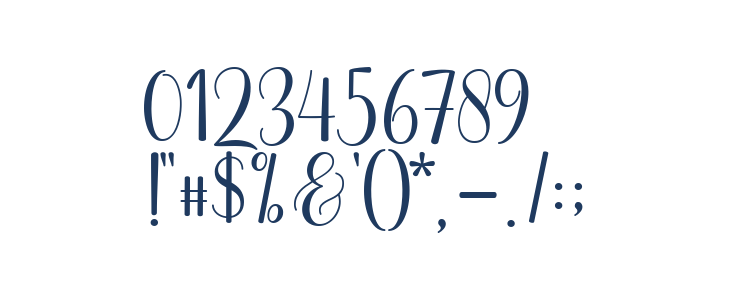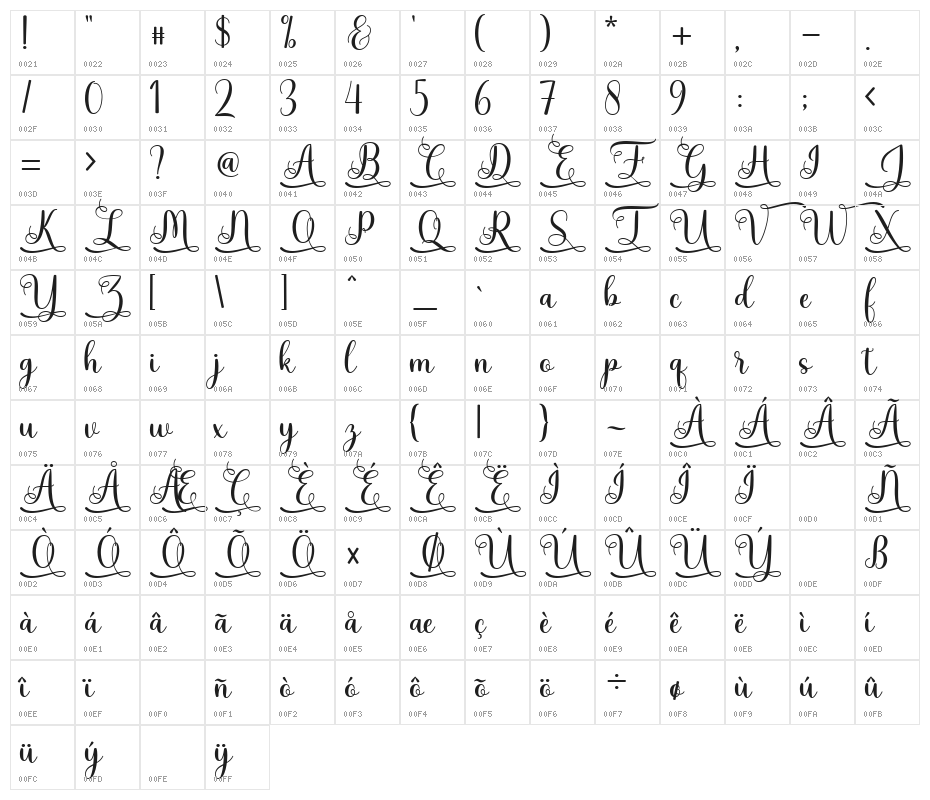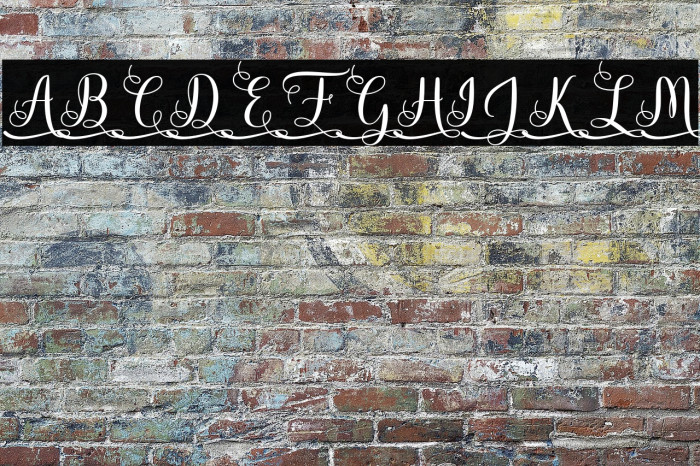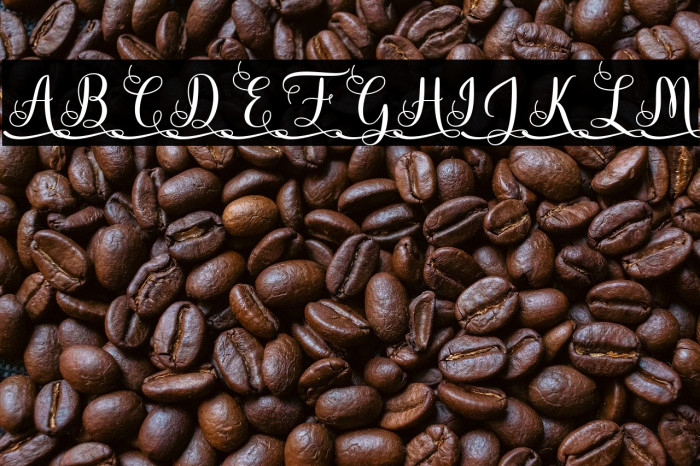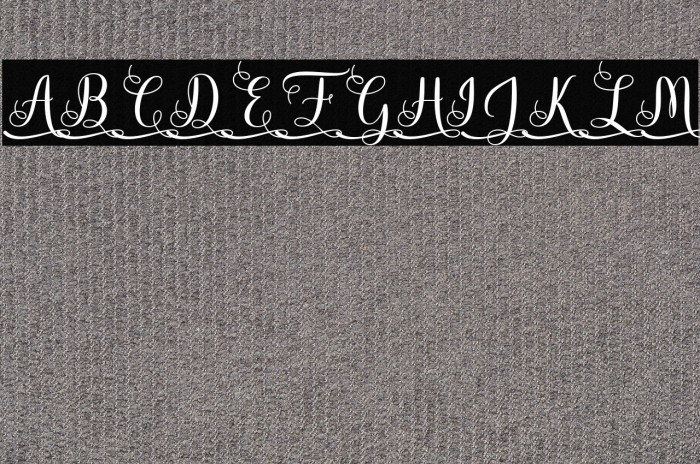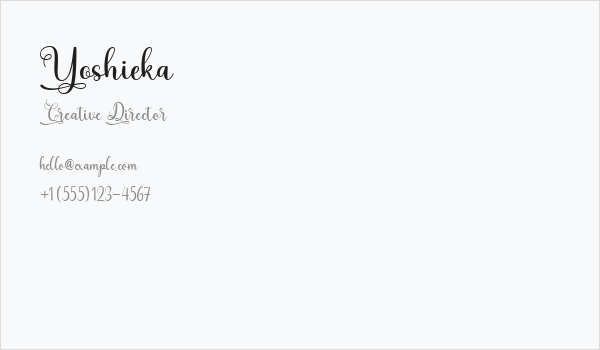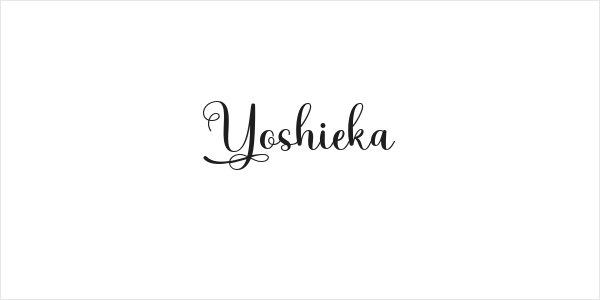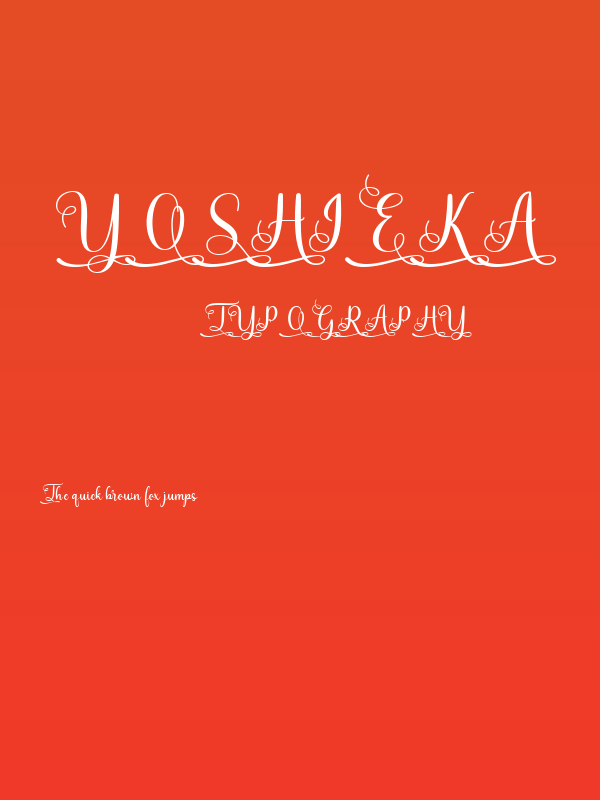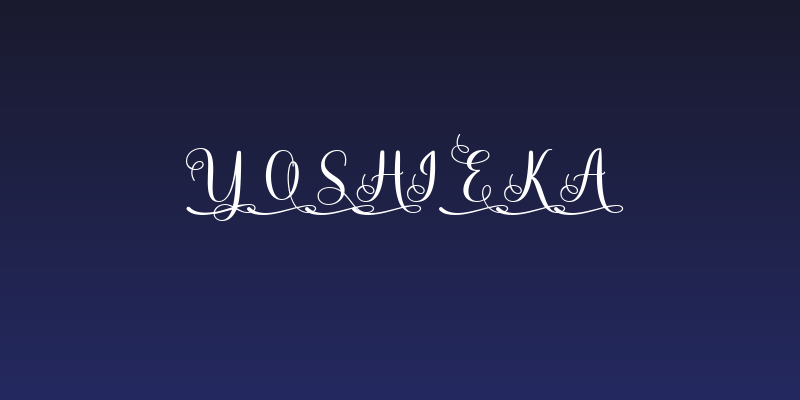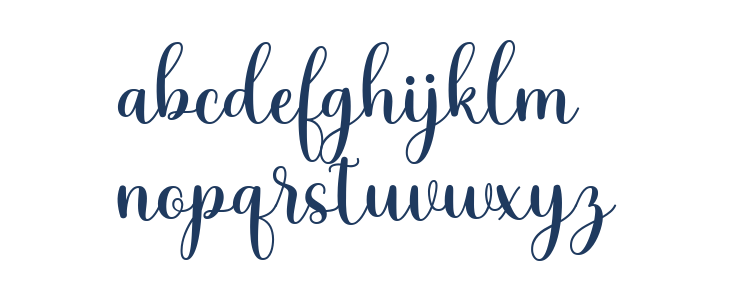
Yoshieka Font
Yoshieka Description
This elegant script font features a sophisticated blend of flowing lines and intricate swirls, creating a sense of movement and grace. The uppercase letters are adorned with delicate flourishes, adding a touch of whimsy and charm. The lowercase letters maintain a smooth, cursive style that is both readable and stylish. Numbers and special characters are designed with the same attention to detail, ensuring consistency across all glyphs. This font is perfect for projects that require a touch of elegance and sophistication, such as wedding invitations, branding, and high-end product packaging.
| Overall Style | Elegant, Decorative |
| Use Case | Headlines, Invitations, Branding |
| Proposed Projects | Wedding invitations, luxury branding, elegant product packaging, greeting cards. |